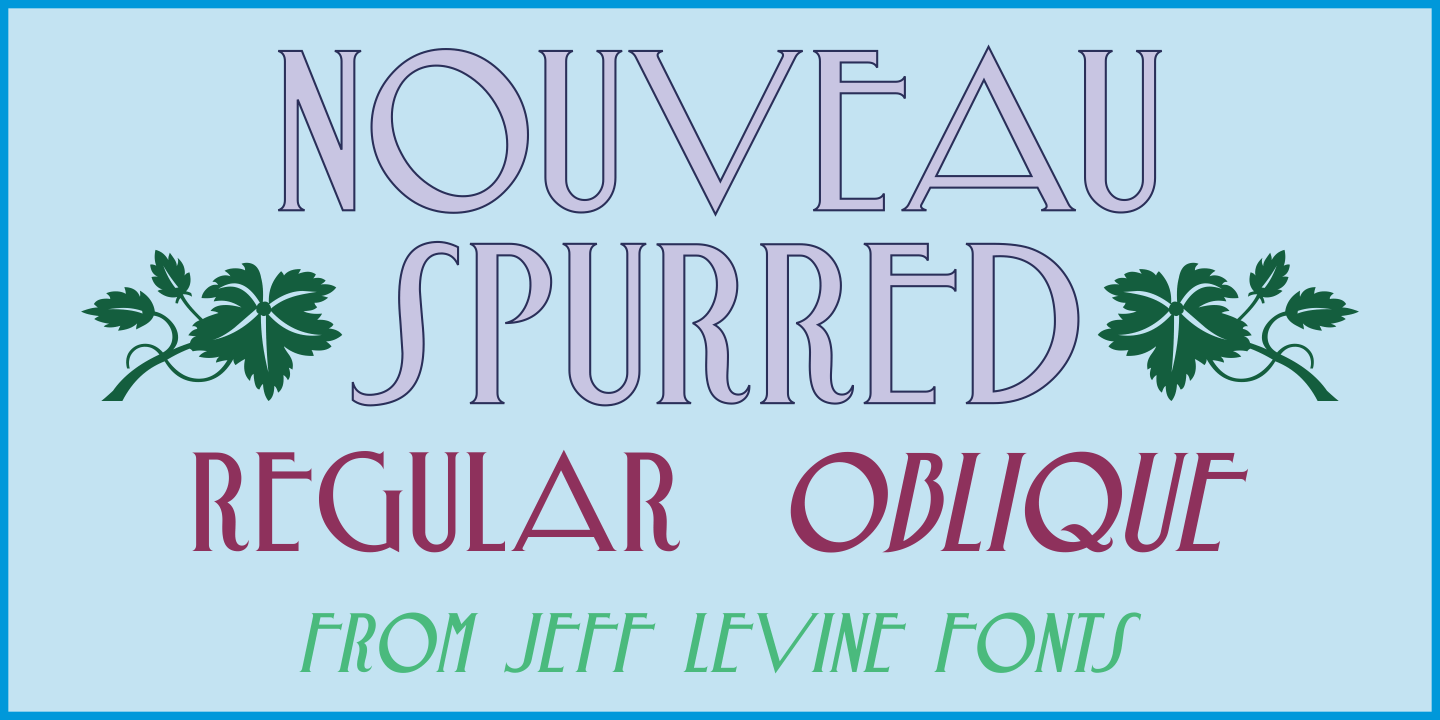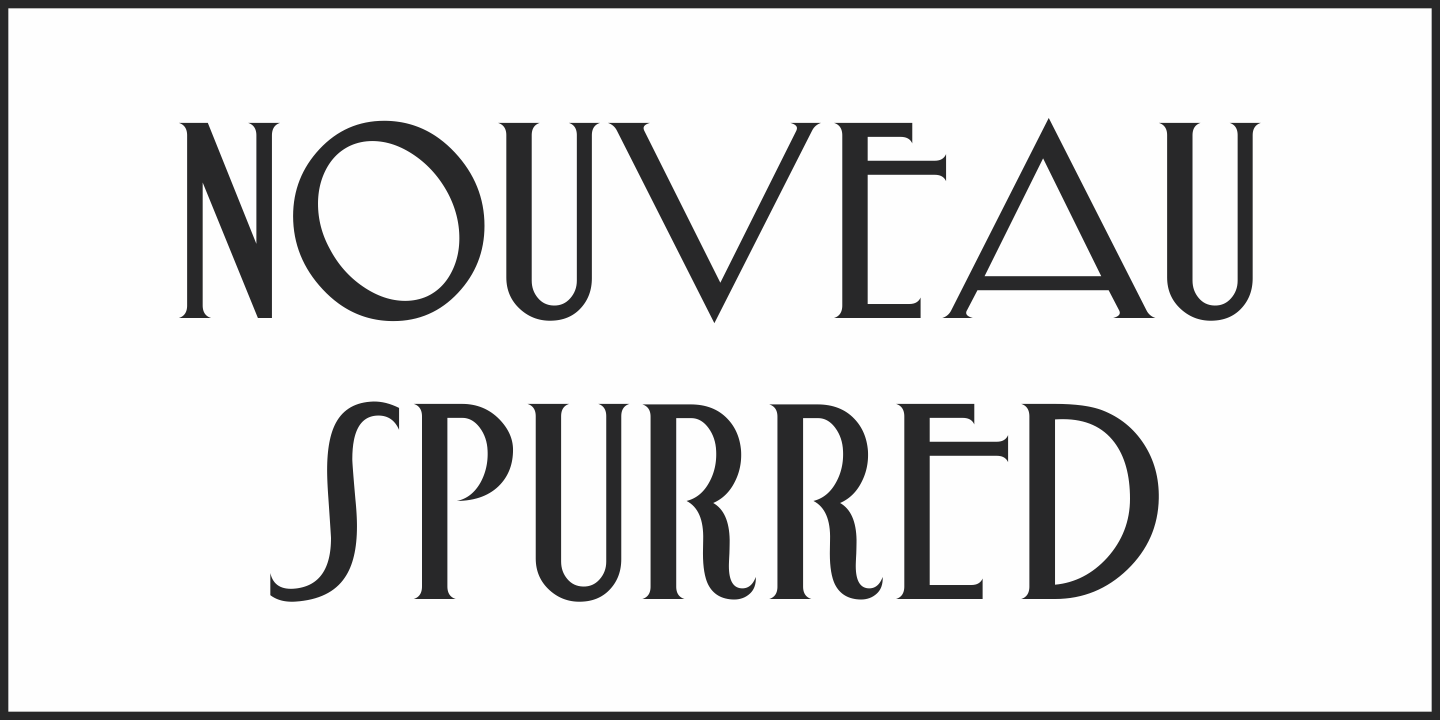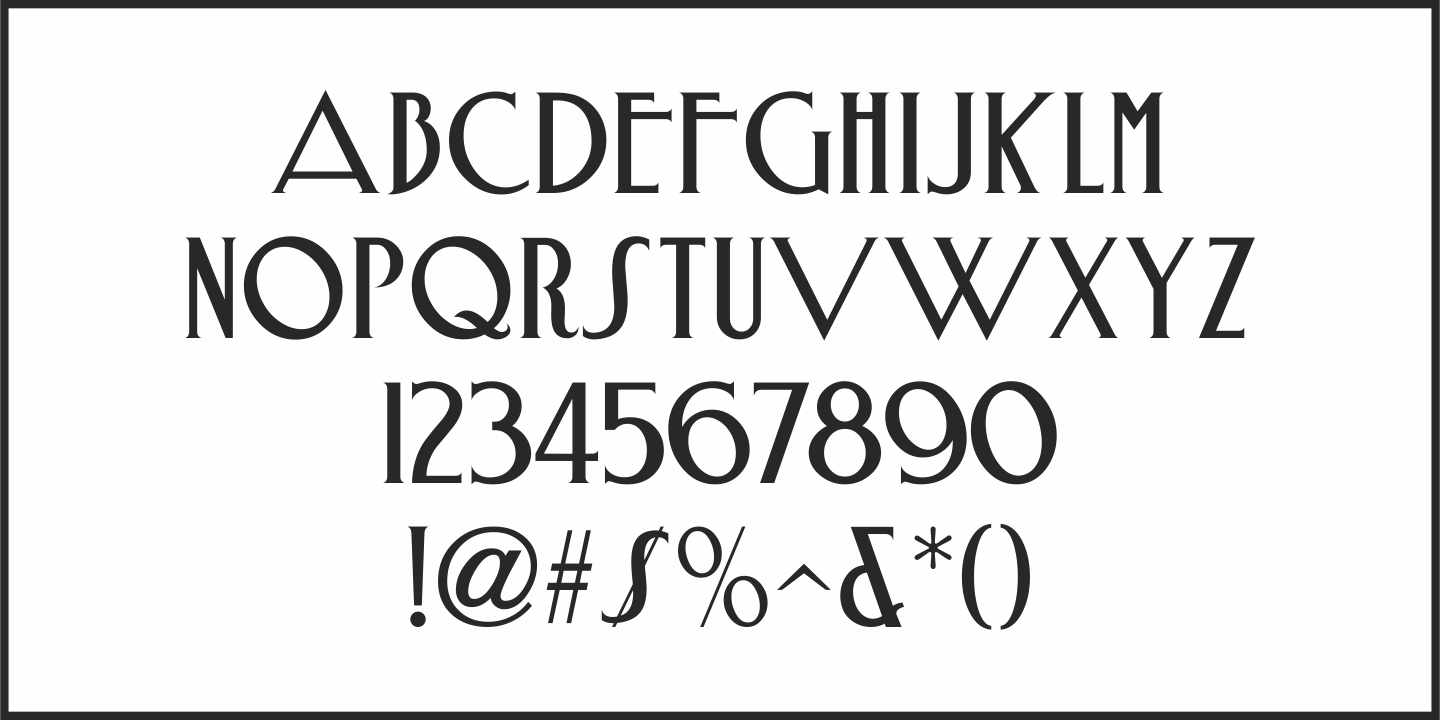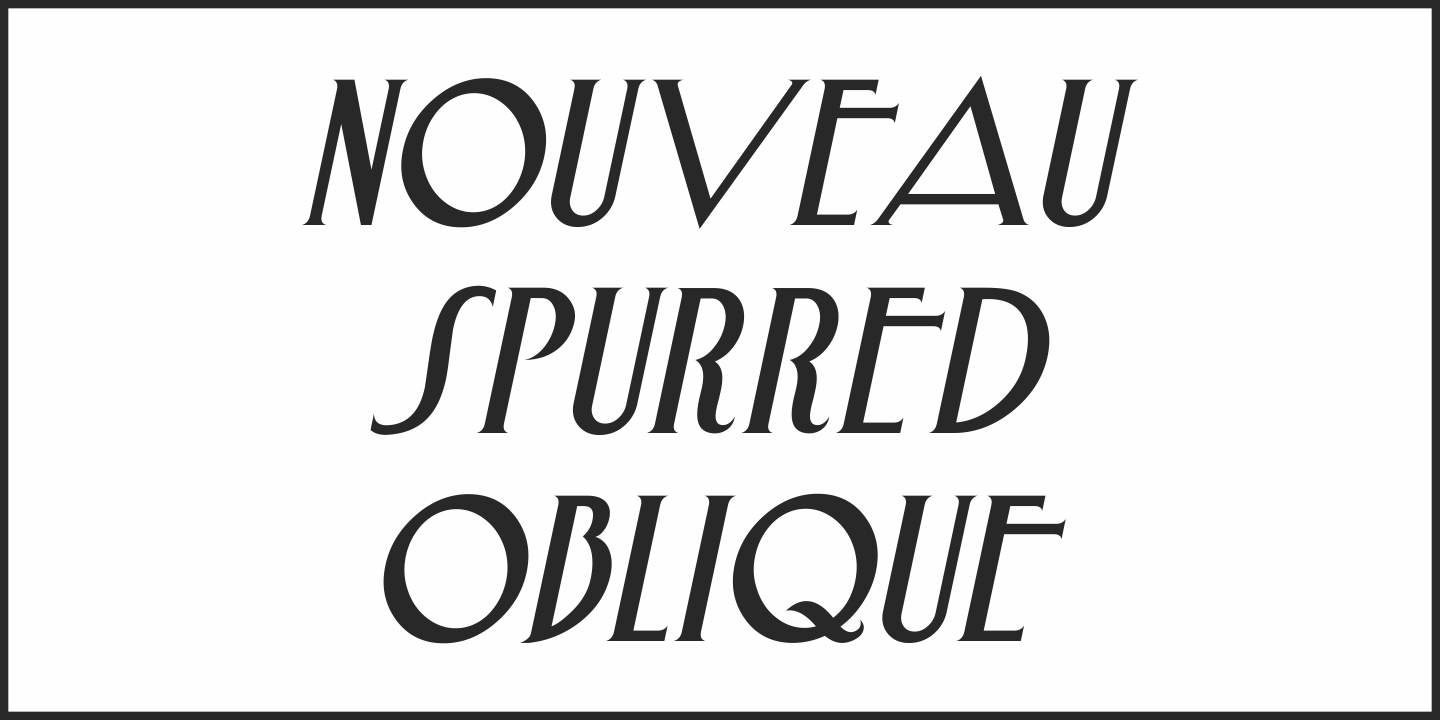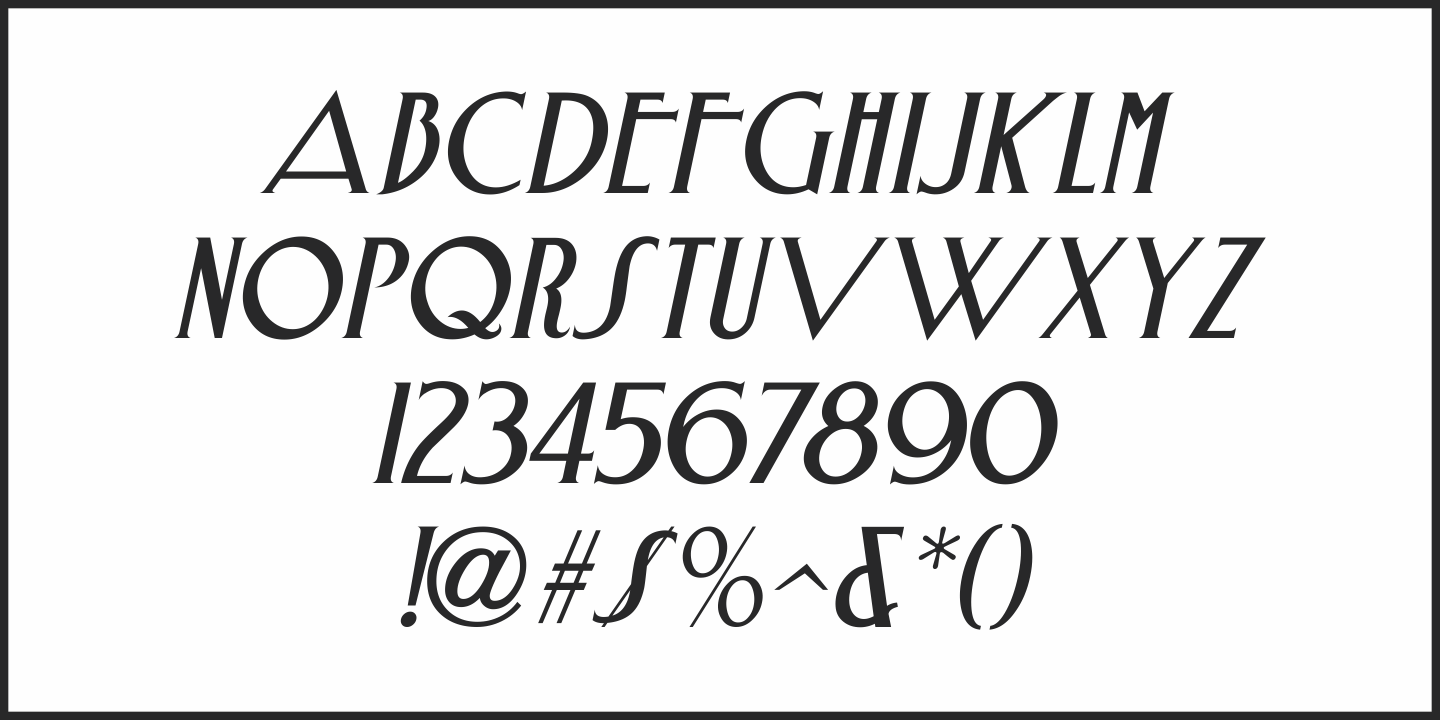
Nouveau Spurred
Buy NowThe hand lettered title on the 1915 sheet music for “On the Banks of the Amazon” was the design model for Nouveau Spurred JNL, which is available in both regular and oblique versions.
This gently spurred Art Nouveau Roman is a beautiful choice for headlines, book titles and other retro-influenced projects.